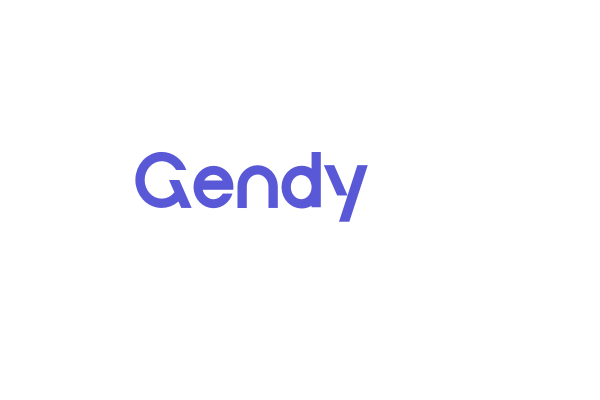
Gendy is a basic sans-serif font designed by Yudi Pratama Chandra. With a clean and modern style, this font is perfect for a wide range of design projects. Its simplicity and readability make it ideal for use in branding, headlines, and body text.
Font Name: Gendy
Designer: Yudi Pratama Chandra
Font Family: Gendy